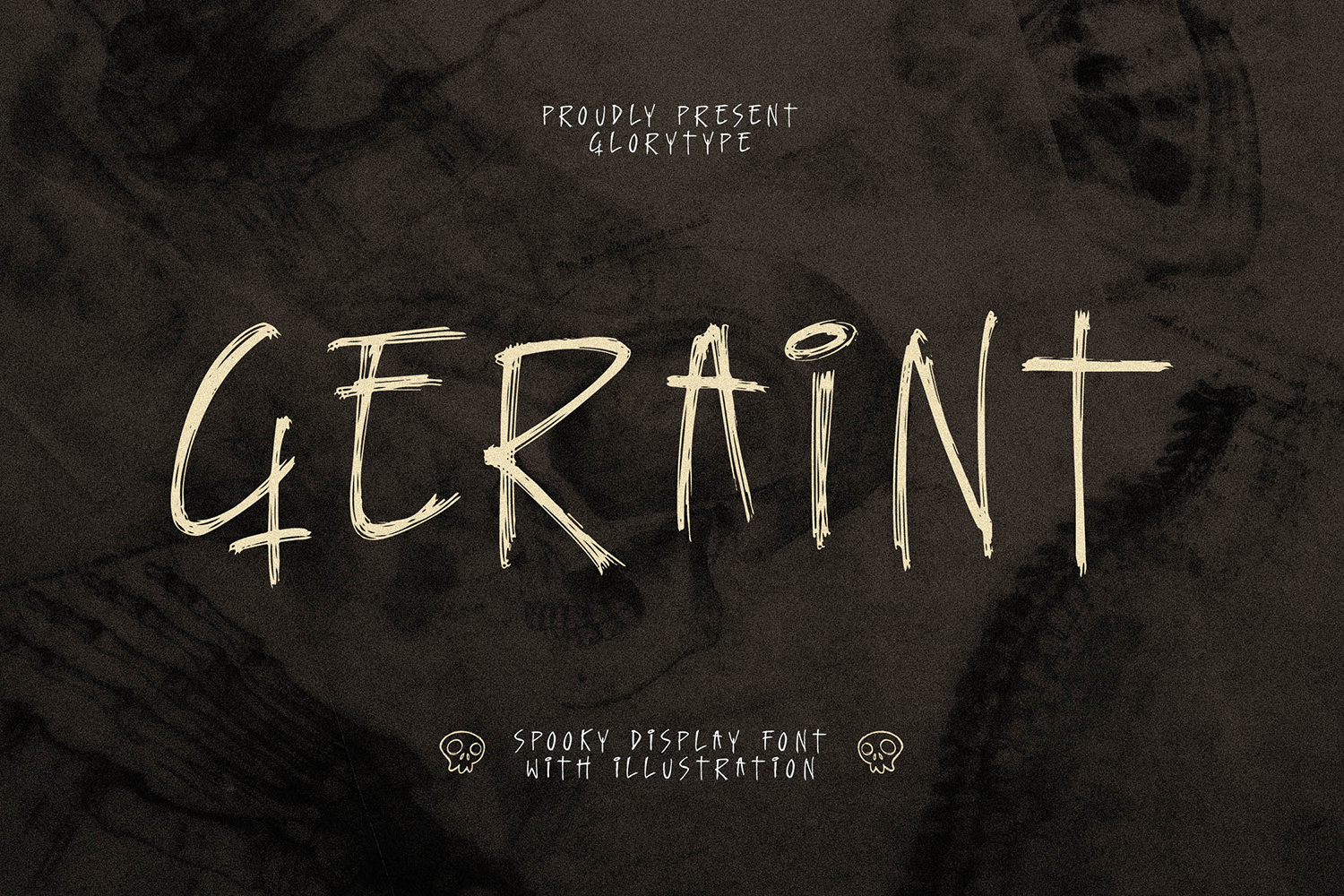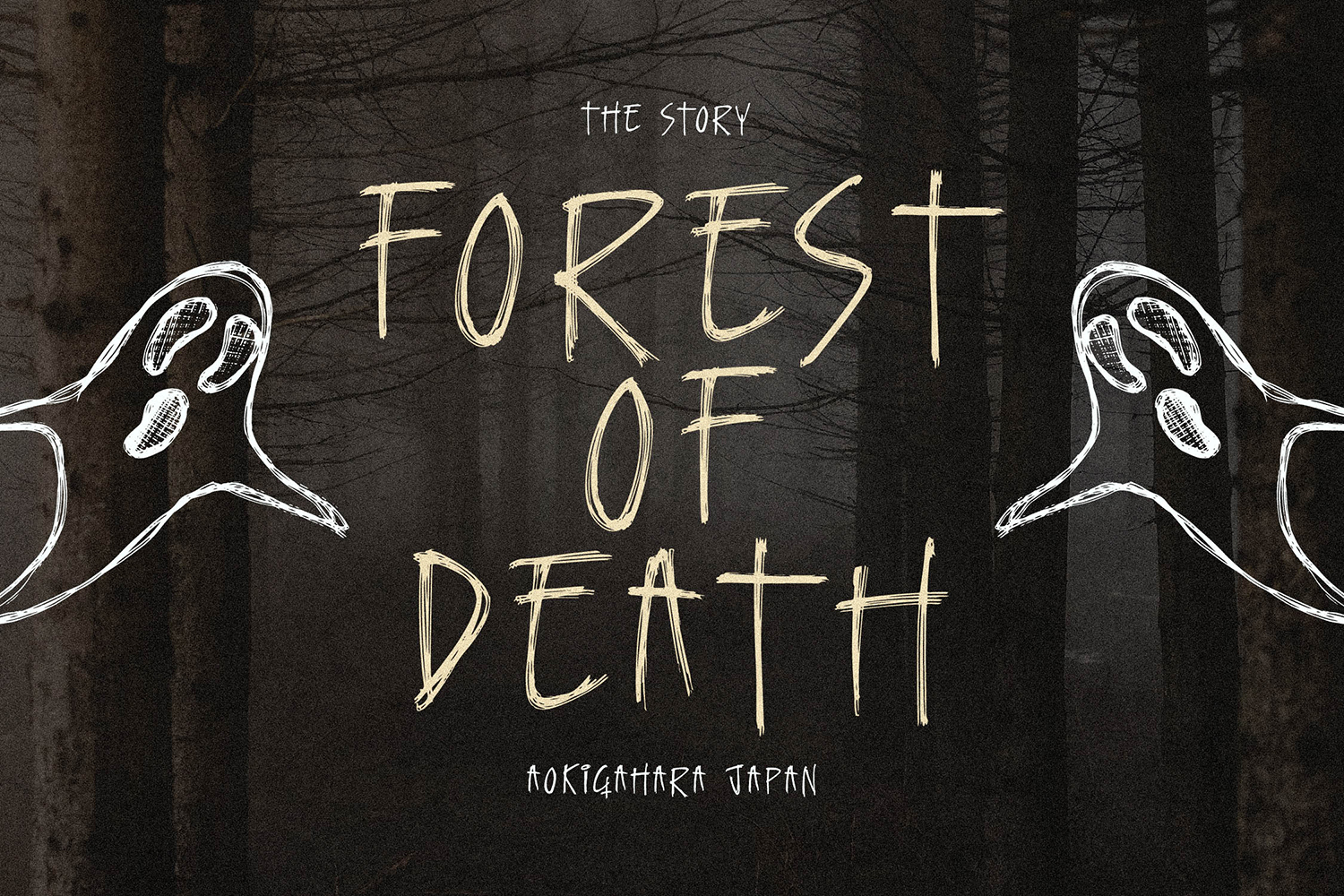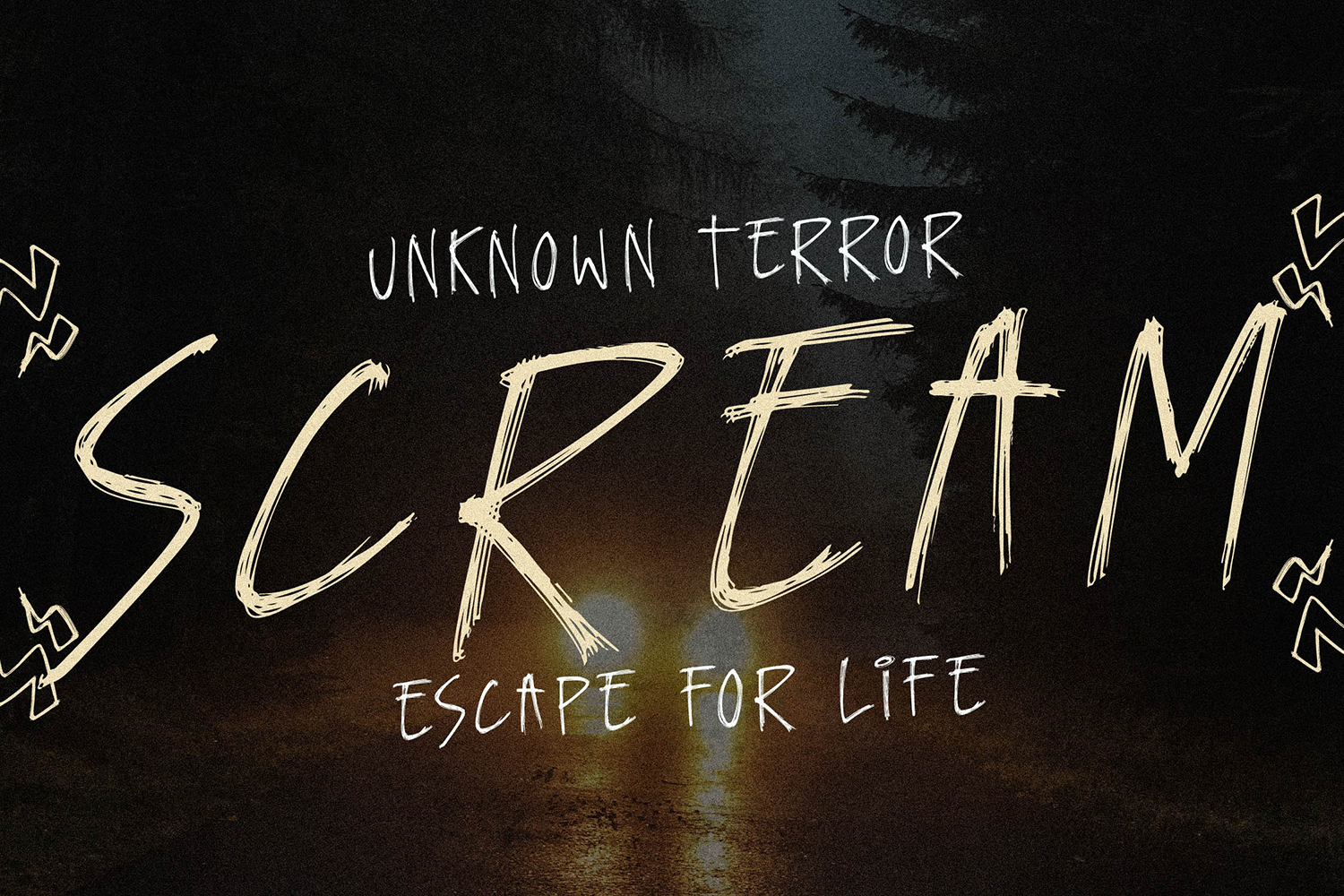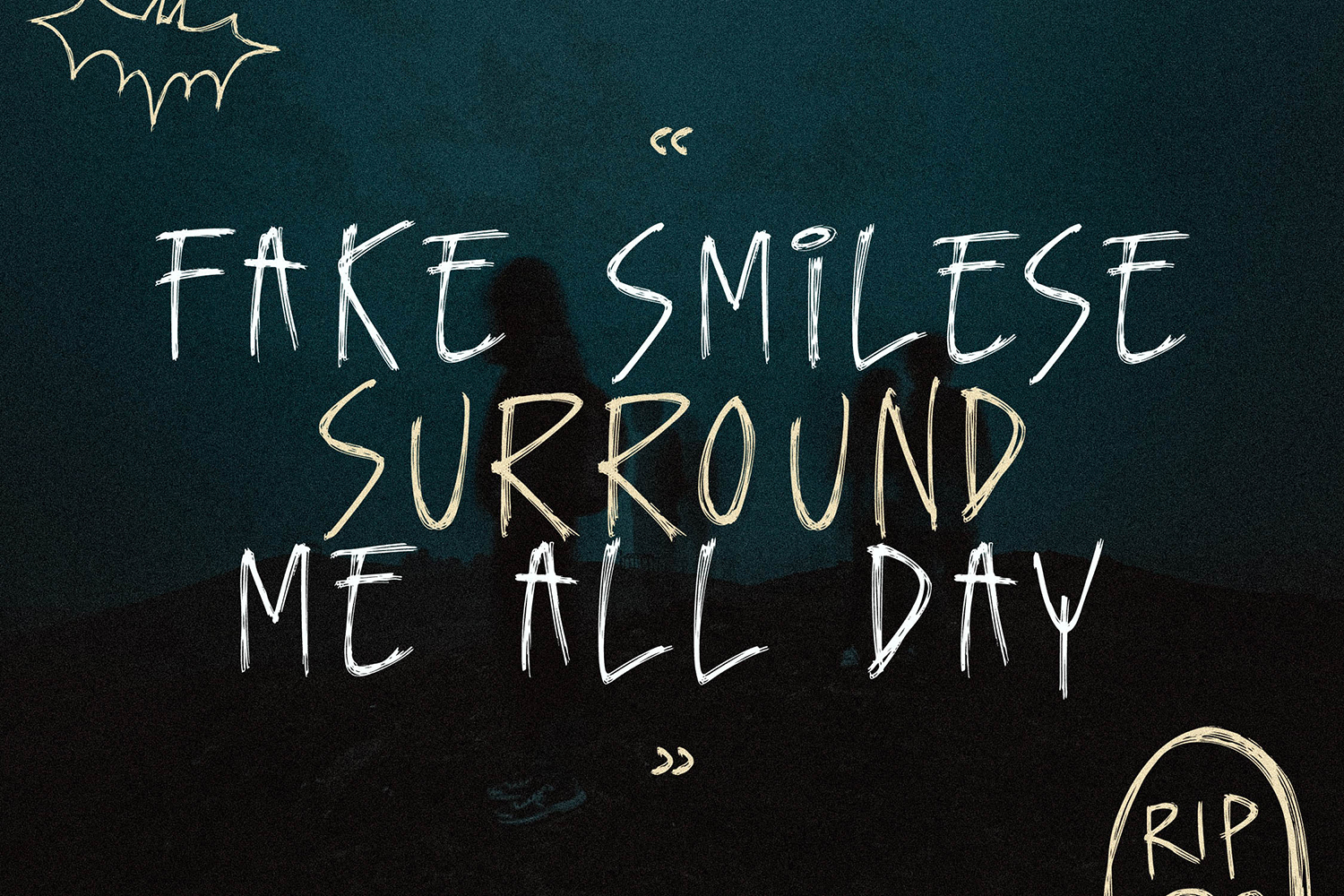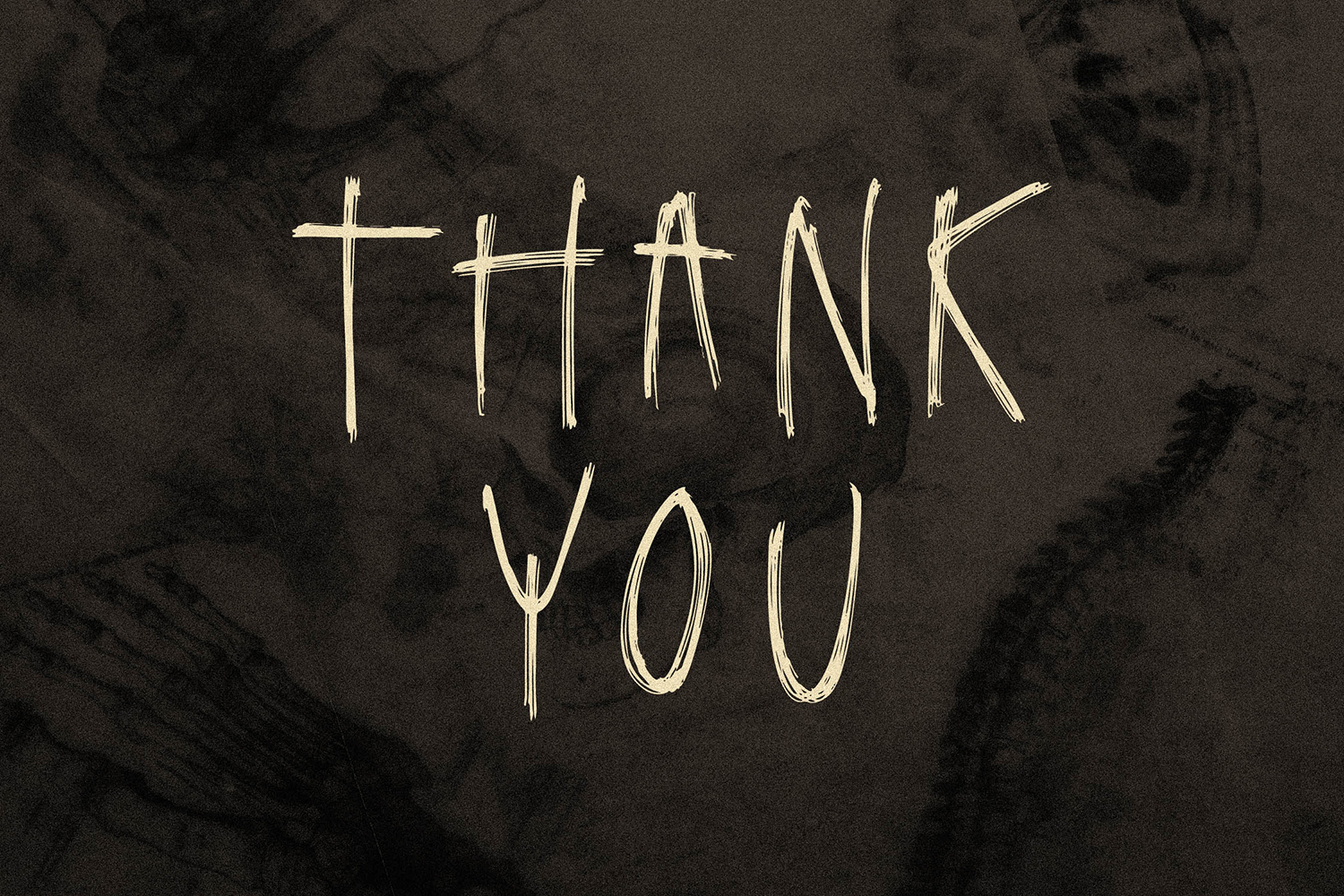
Geraint Free Font
Geraint Free Font is a thin, spooky display font. Add it to your Halloween crafty ideas and you will definitely impress (and spook) your audience. This free typeface was designed by a talented Glorytype Studio. If you like it don’t forget to check out the full version.